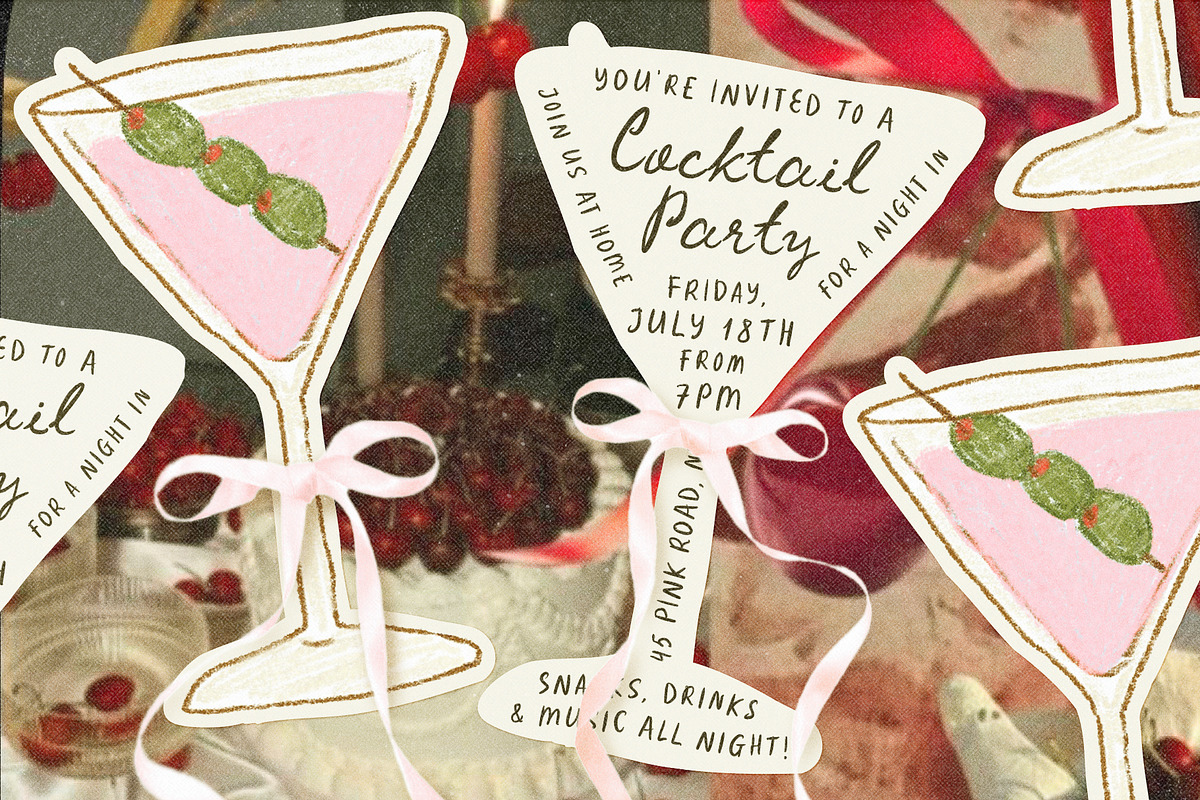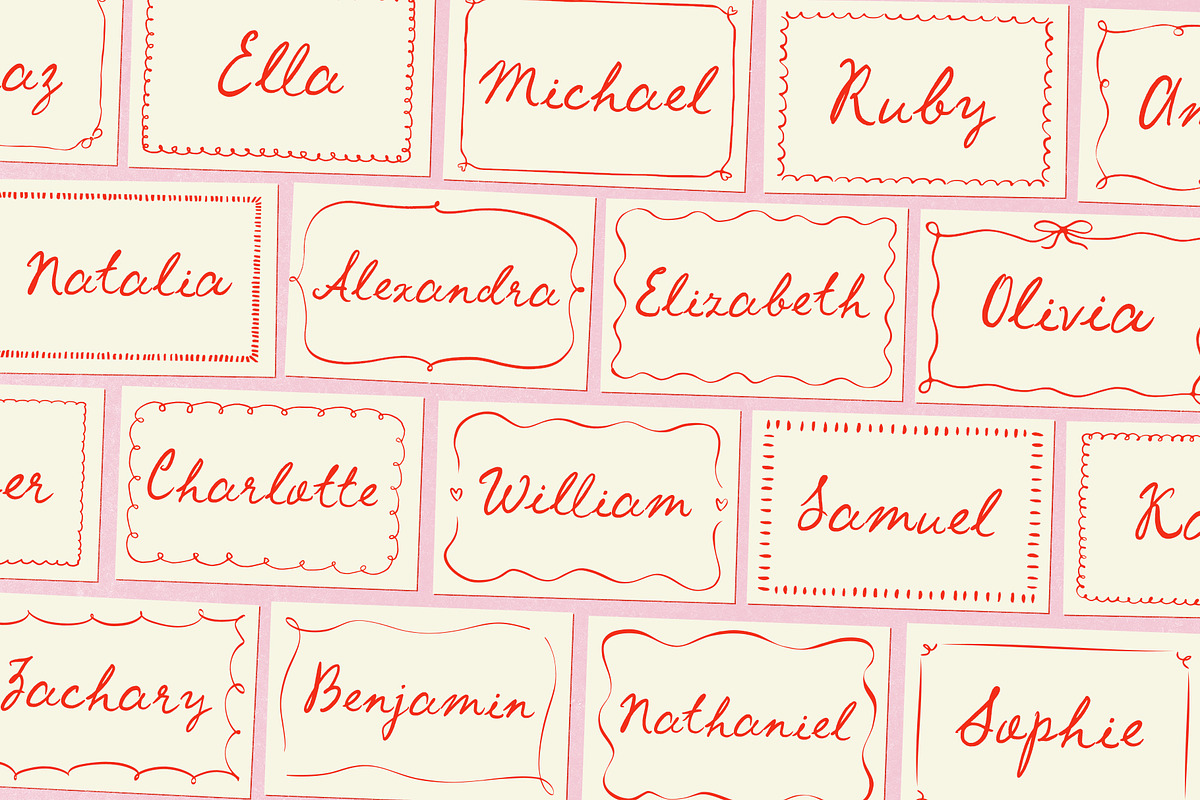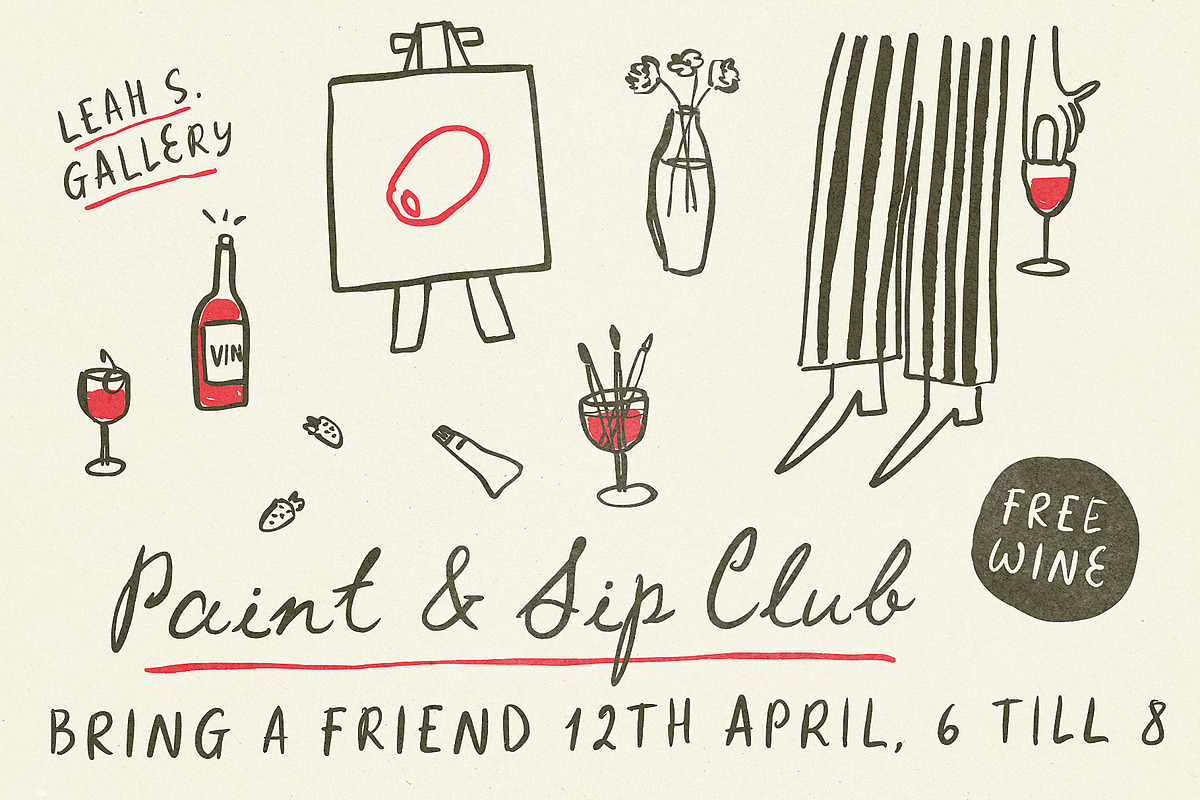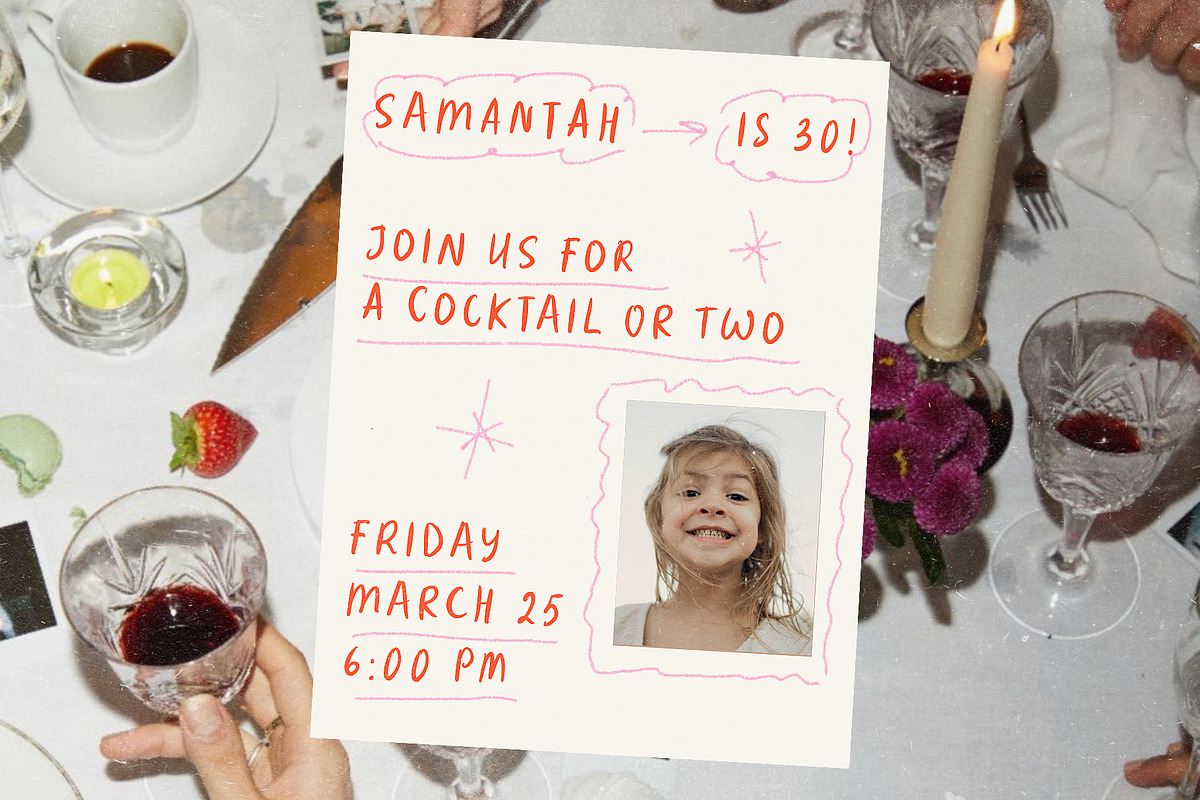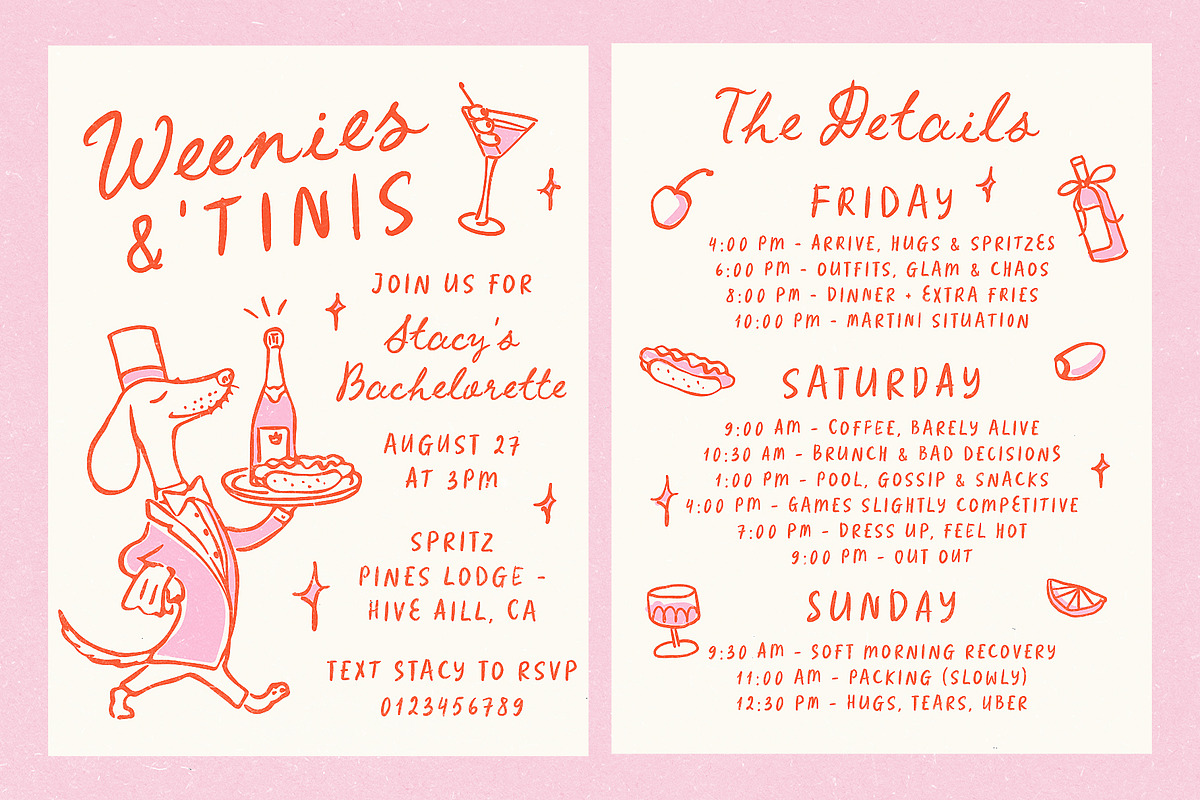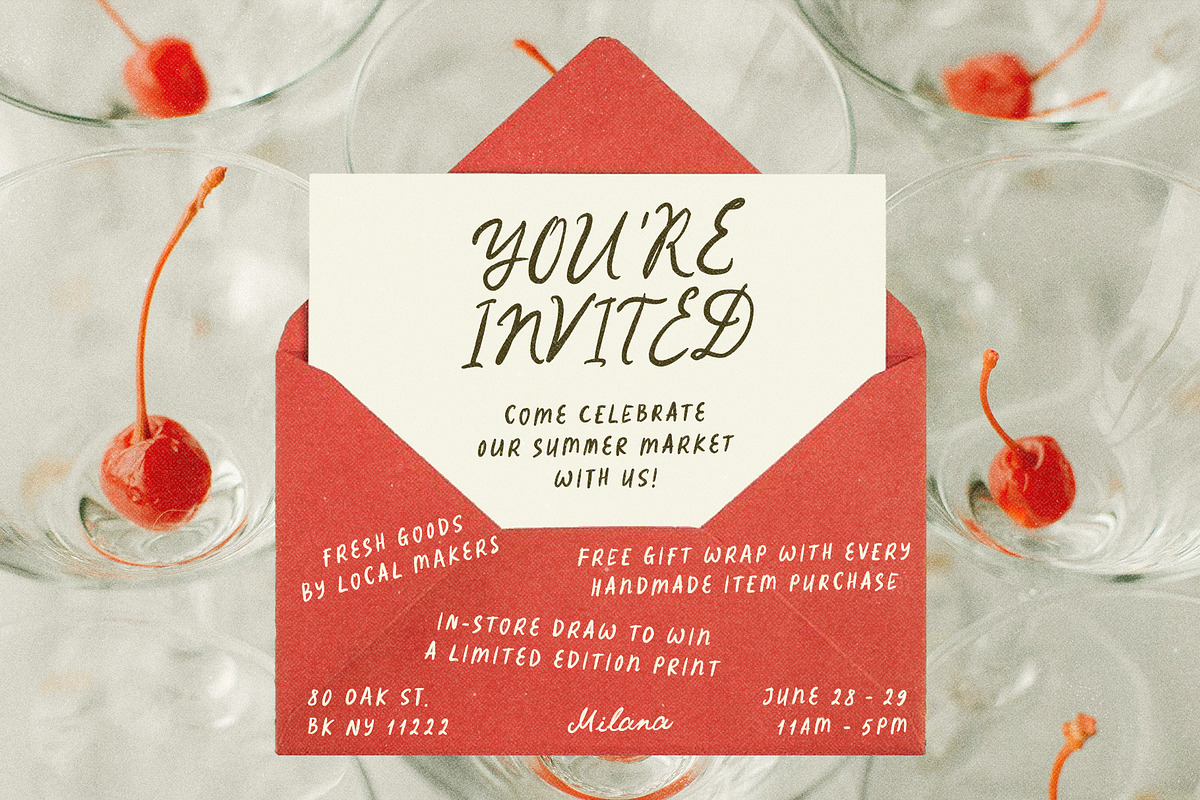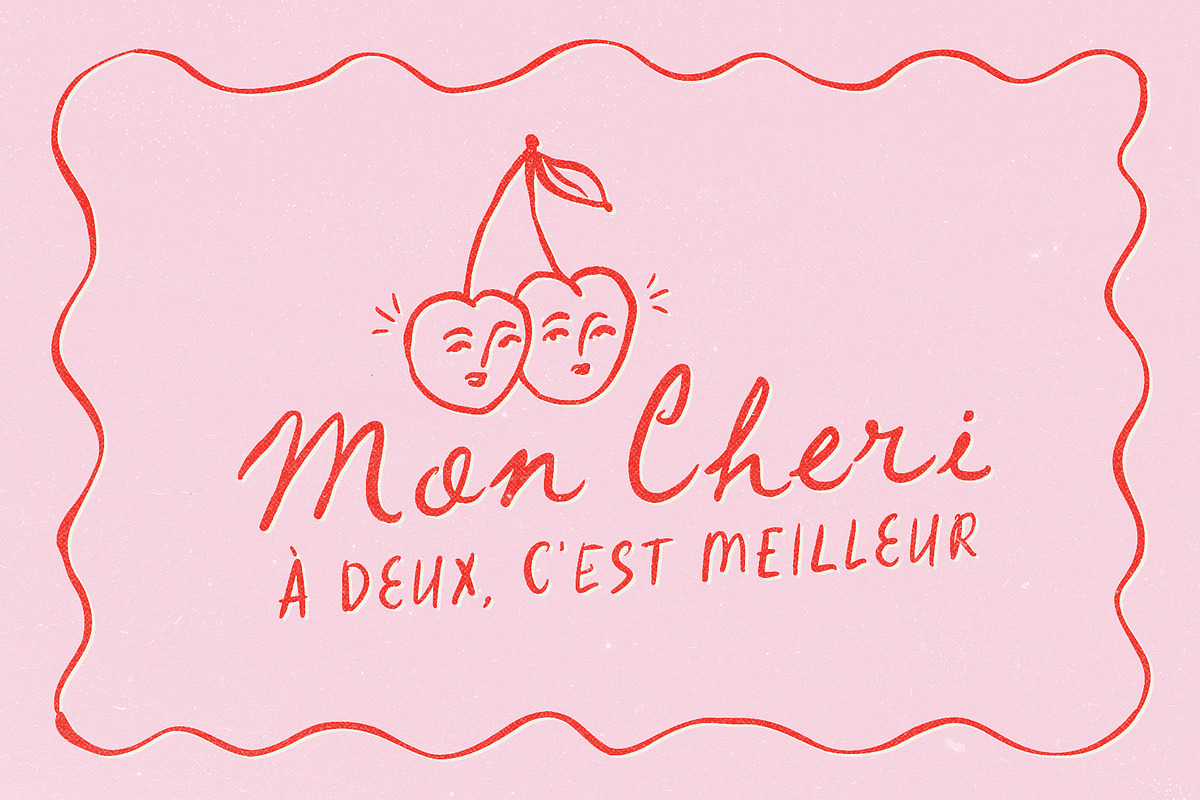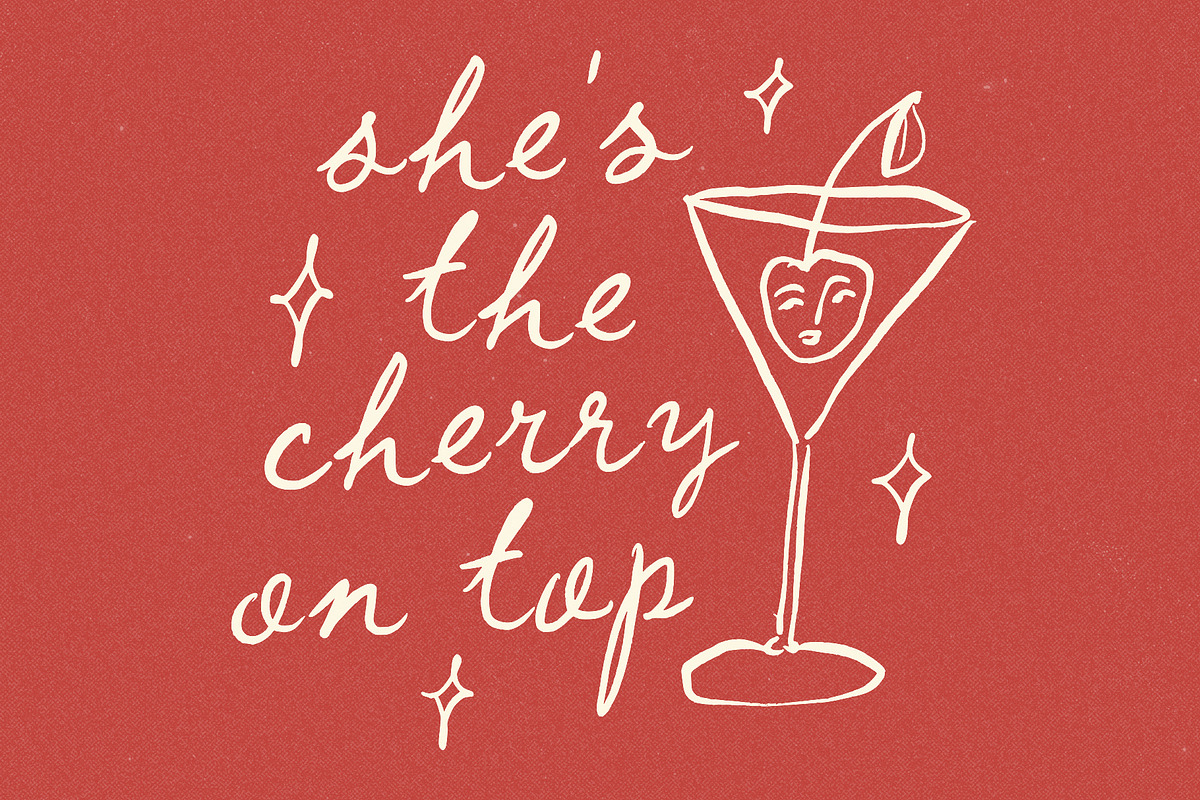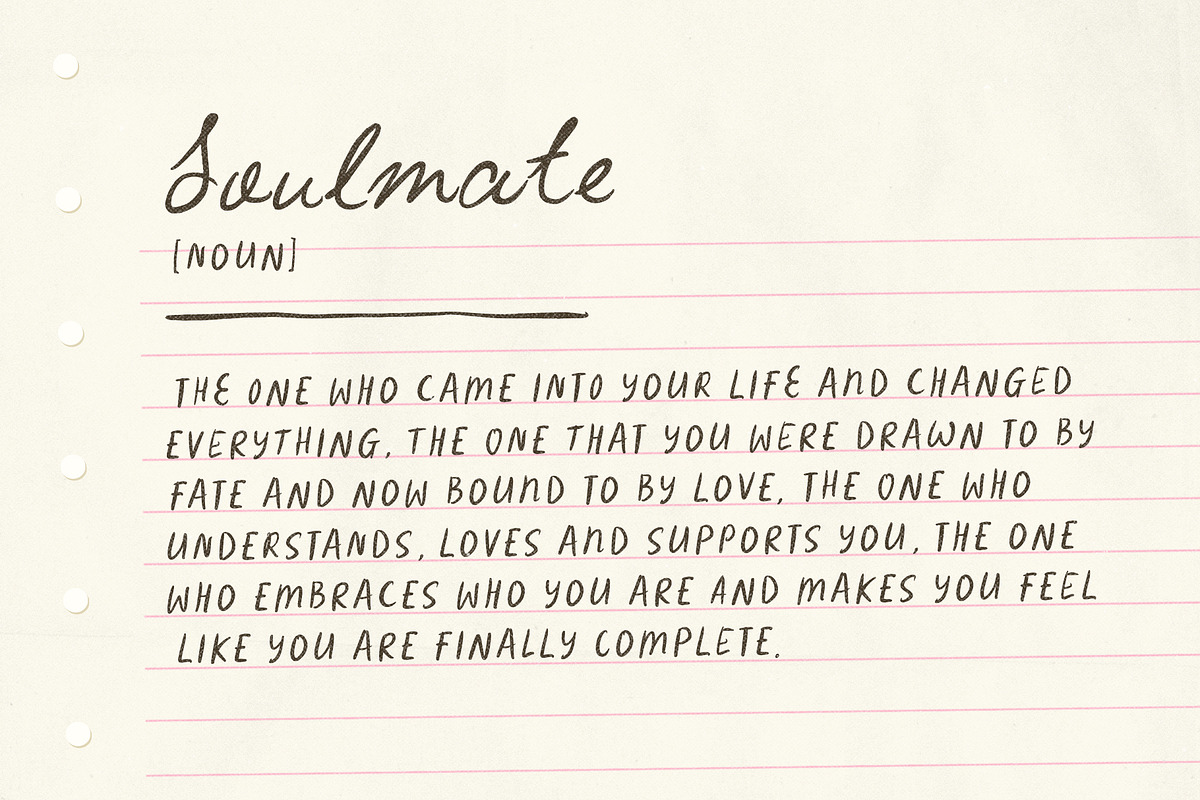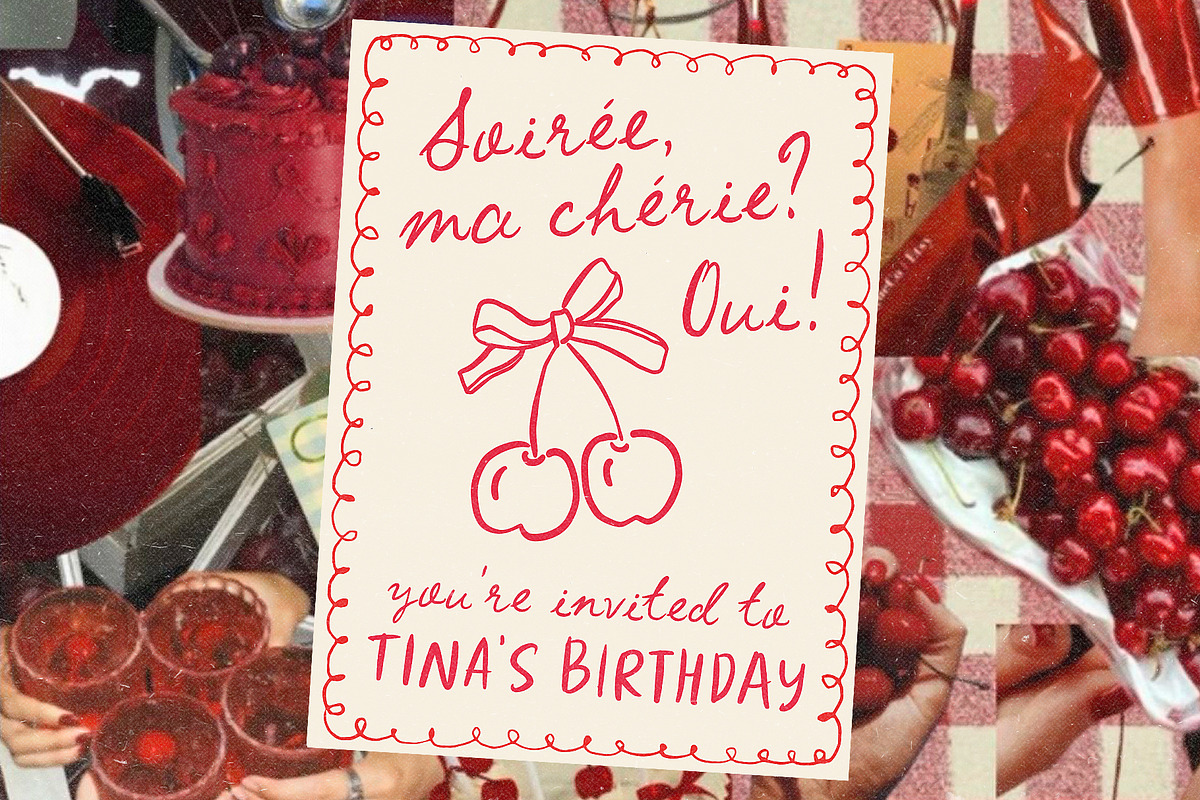
Cherry Cocktail Party Messy Font Duo
Cherry Cocktail Party is a playful font duo with personality — a lively script paired with matching all caps that just work together without overthinking it.
It’s perfect for party invites, bachelorettes, markets, posters, summer soirées, wedding stationery, quotes, and social media content.
It has that “summer’s already started” kind of energy — easy, fun, a little flirty, like a night out with friends and a cold drink 🍒🍸